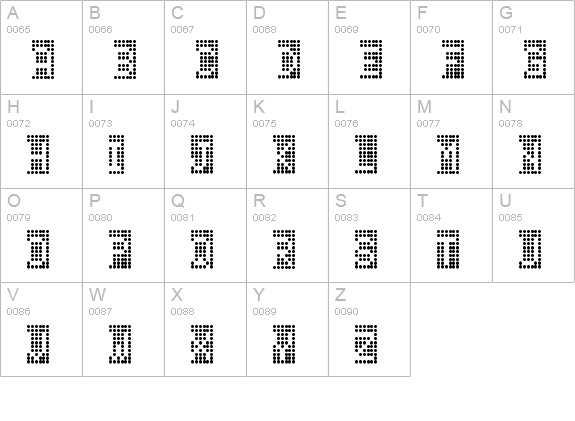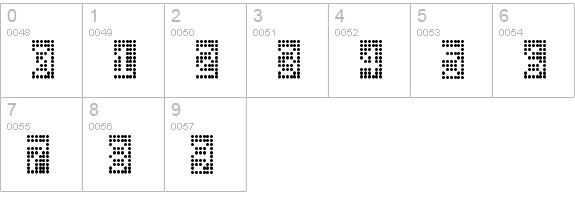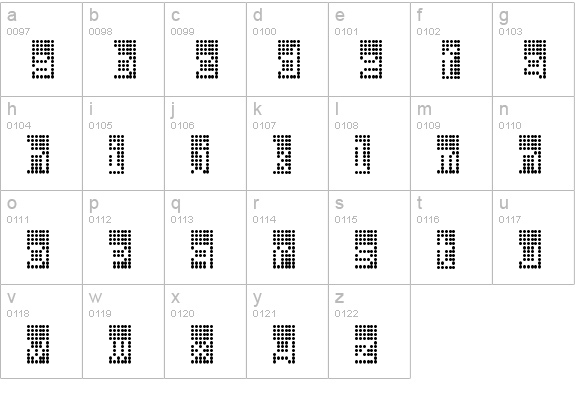
DotMatrix-Grid font is a unique and innovative typeface that combines elements of traditional dot matrix printing with a modern grid layout. This font is perfect for adding a retro yet contemporary touch to your designs. The intricate grid pattern creates a visually striking effect, making it suitable for a wide range of projects including posters, flyers, and digital graphics. What's even better is that DotMatrix-Grid font is available for free download at FontsMarket.com. You can easily access this dynamic font and incorporate it into your creative endeavors without any cost. Don't miss out on the opportunity to enhance your designs with this eye-catching and versatile typeface. Download DotMatrix-Grid font today and elevate your visual content to new heights!